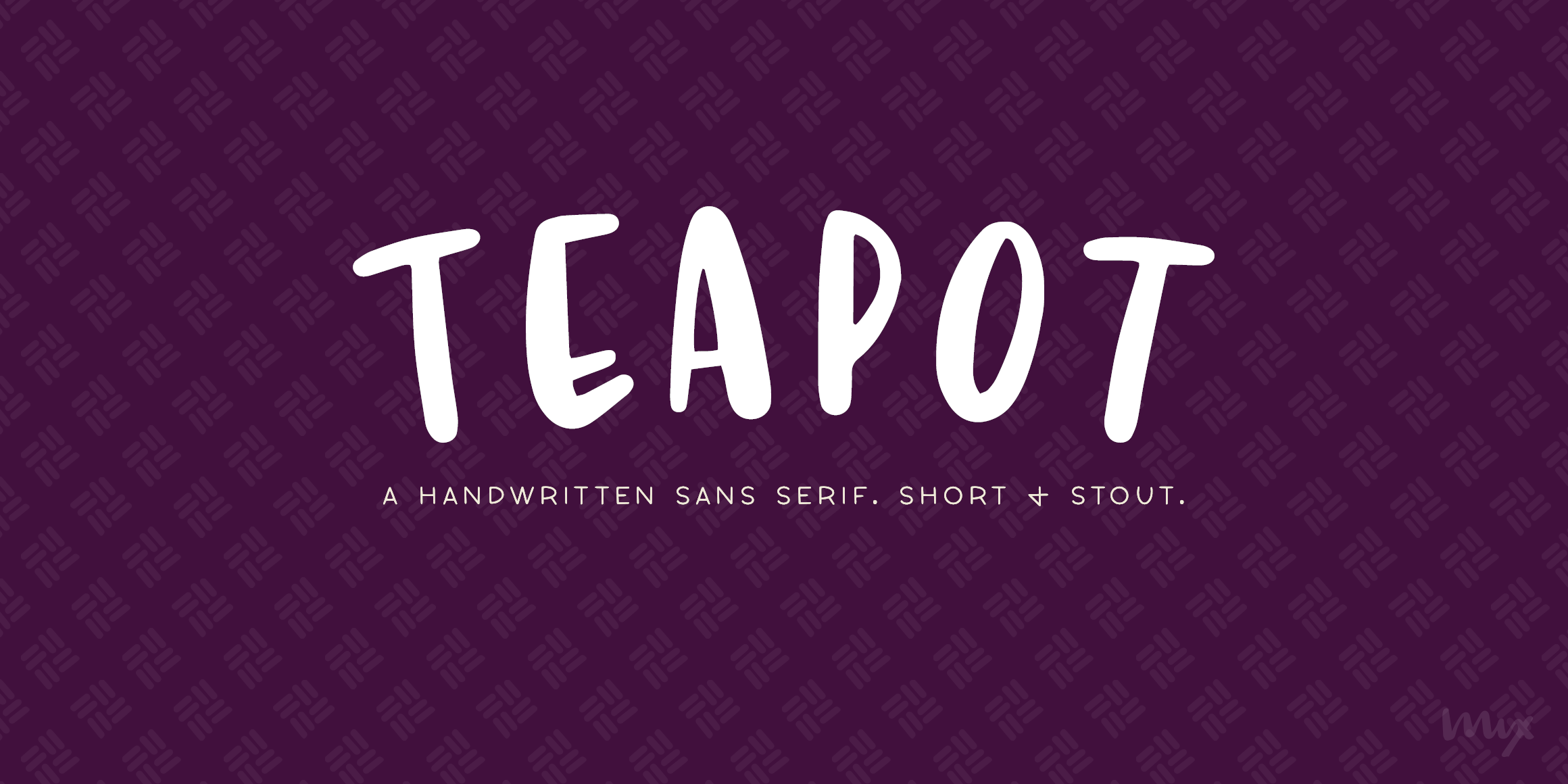
The Mix Teapot Font is an excellent choice for designs that aim for a charming, whimsical, and often handcrafted or storybook-inspired aesthetic. Imagine it gracing the cover of a delightful children's book, adding a unique, cozy touch to a café's branding, or bringing a personalized feel to artisan product labels. It's also perfectly suited for informal invitations, cheerful greeting cards, playful social media graphics, and any project where you want to convey a sense of warmth, creativity, and a touch of nostalgic charm. Its often irregular forms, friendly curves, and unique character make it ideal for conveying sincerity and an artistic flair.
What makes the Mix Teapot Font so exciting is its ability to instantly infuse a design with a feeling of comfort and handmade originality. It frequently features subtle imperfections and a natural, flowing quality that mimics genuine handwriting or a playful doodle, making it feel organic and approachable. This font has a charming and distinctive personality that can instantly elevate your design, making it feel both quaint and creatively expressive. It’s designed to capture attention with its unassuming beauty, ensuring your message is not just seen, but felt with a sense of delightful authenticity.
The Mix Teapot Font family typically might be offered in a single, impactful weight to maximize its unique hand-drawn effect, though some variations might include stylistic alternates or unique ligatures that enhance its whimsical appeal. Its primary focus is usually on its distinctive visual impact rather than extensive weight ranges. These variations empower designers to create a truly playful and memorable display, ensuring the Mix Teapot Font Free Download can adapt to a wide array of projects while maintaining its signature, cozy charm.